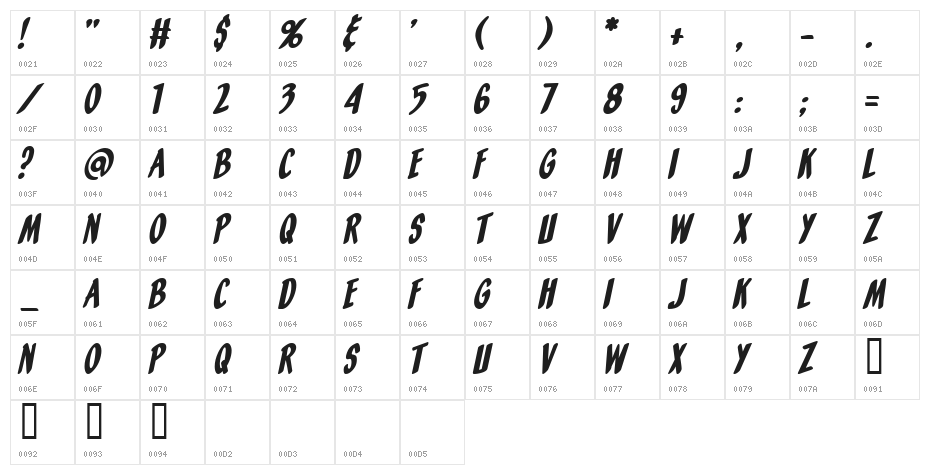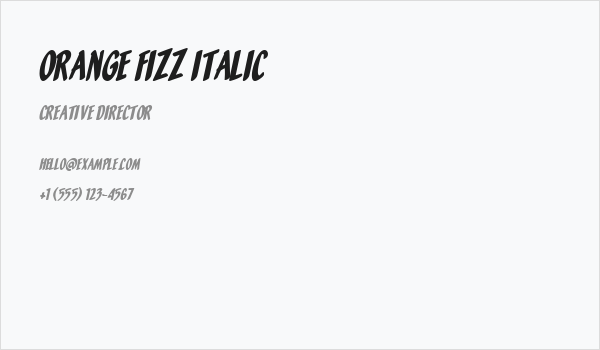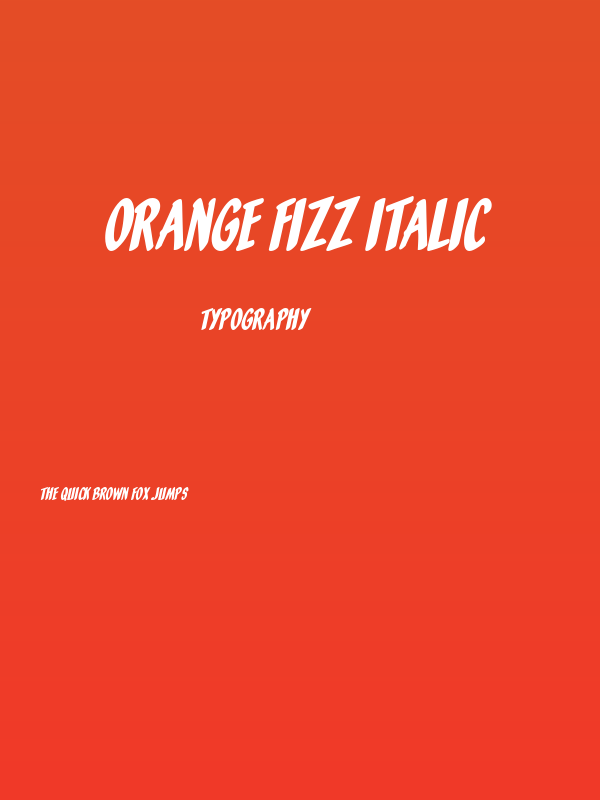
Orange Fizz Italic Font
Orange Fizz Italic Description
This font features a bold and dynamic style with an italic slant, giving it a sense of movement and energy. The characters are thick and rounded, with a playful and informal appearance. The uppercase and lowercase letters maintain a consistent weight, contributing to a cohesive look. The numbers and special characters are equally bold, ensuring readability and impact. This font's design is ideal for creating eye-catching headlines or logos that require a touch of personality and flair.
| Proposed Projects | Perfect for branding, advertising, posters, and any project needing a lively and energetic typeface. |